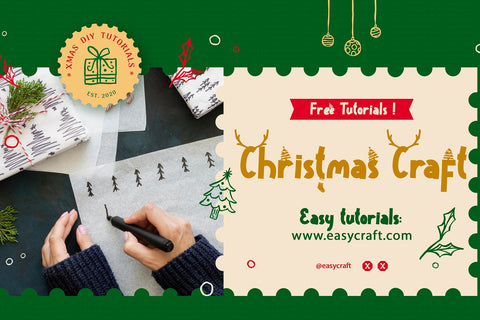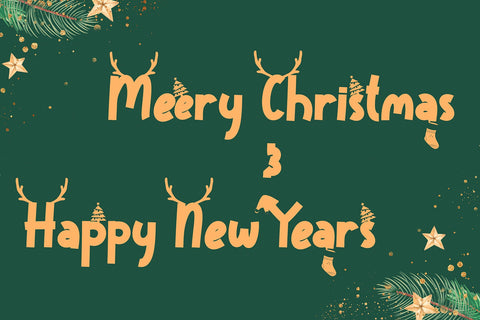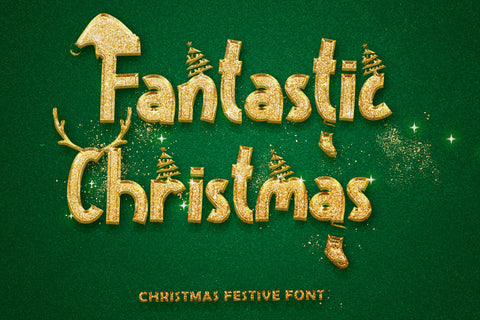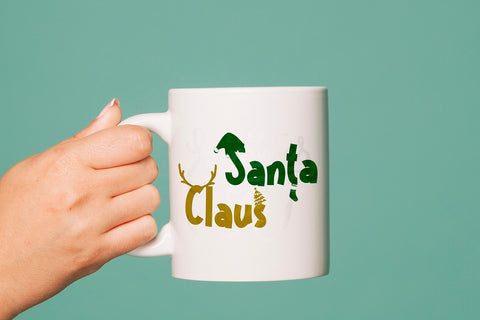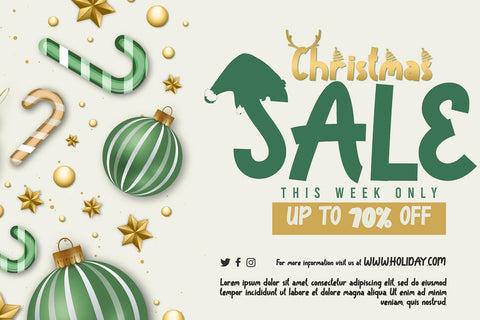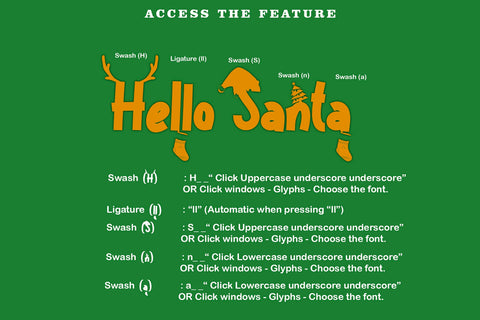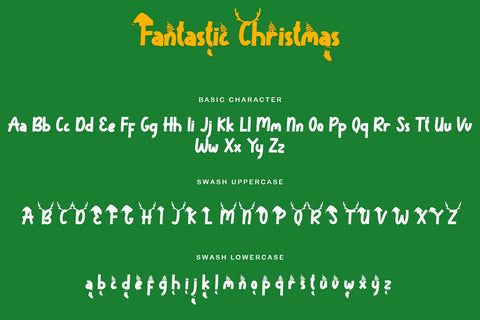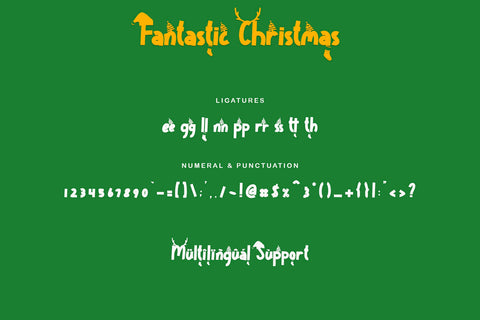
Fantastic Christmas
"Fantastic Christmas" is a very elegant Christmas themed font. This font is very unique with its embellished Christmas hat, Christmas tree, and reindeer antlers. "Fantastic Christmas" is perfect to add to your Christmas atmosphere. This font is very easy to use and very complete because it contains basic characters, swash uppercase, swash lowercase, ligatures, multilingual support, numerals and punctuations.